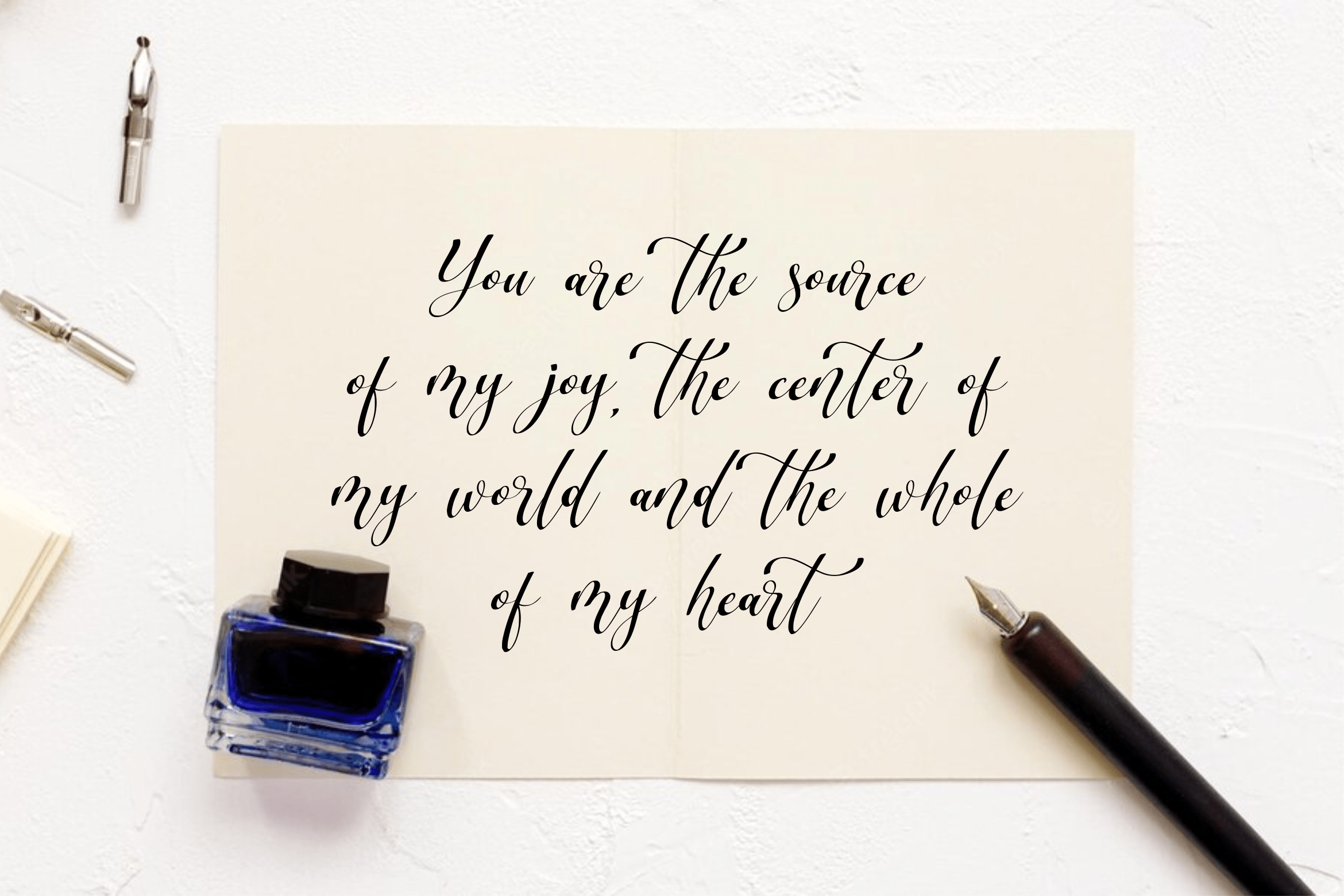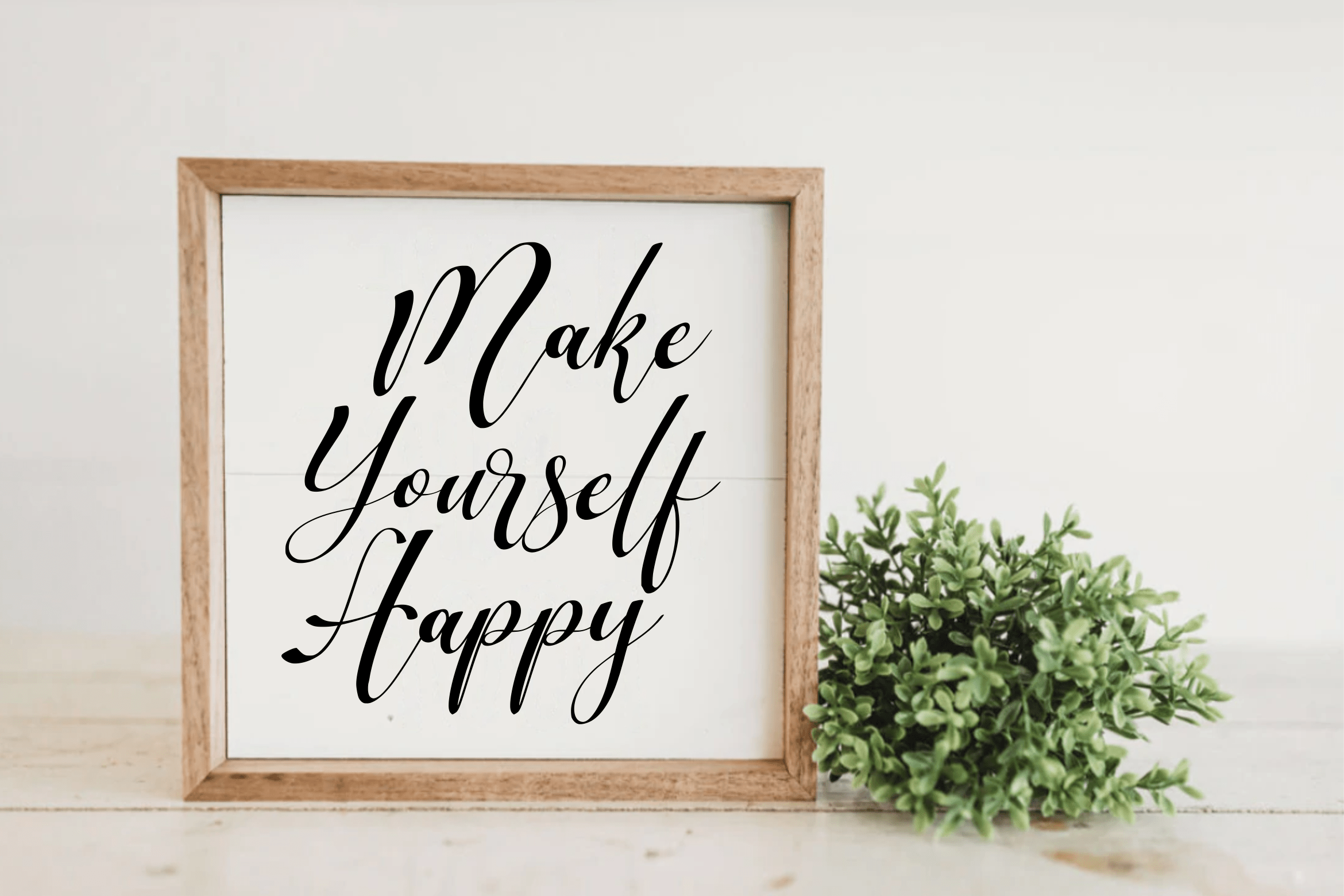
Scripthome Font
Scripthome Script Font
This is a Modern Calligraphy Font. Scripthome is perfect for product packaging, branding project, megazine, social media, wedding, or just used to express words above the background.